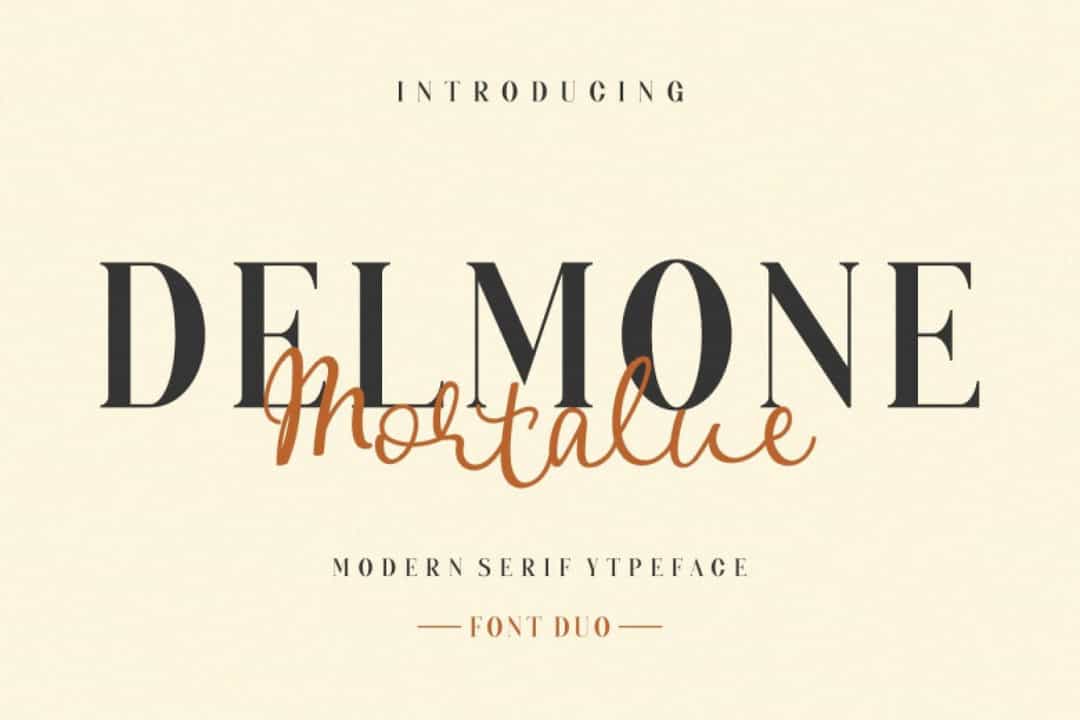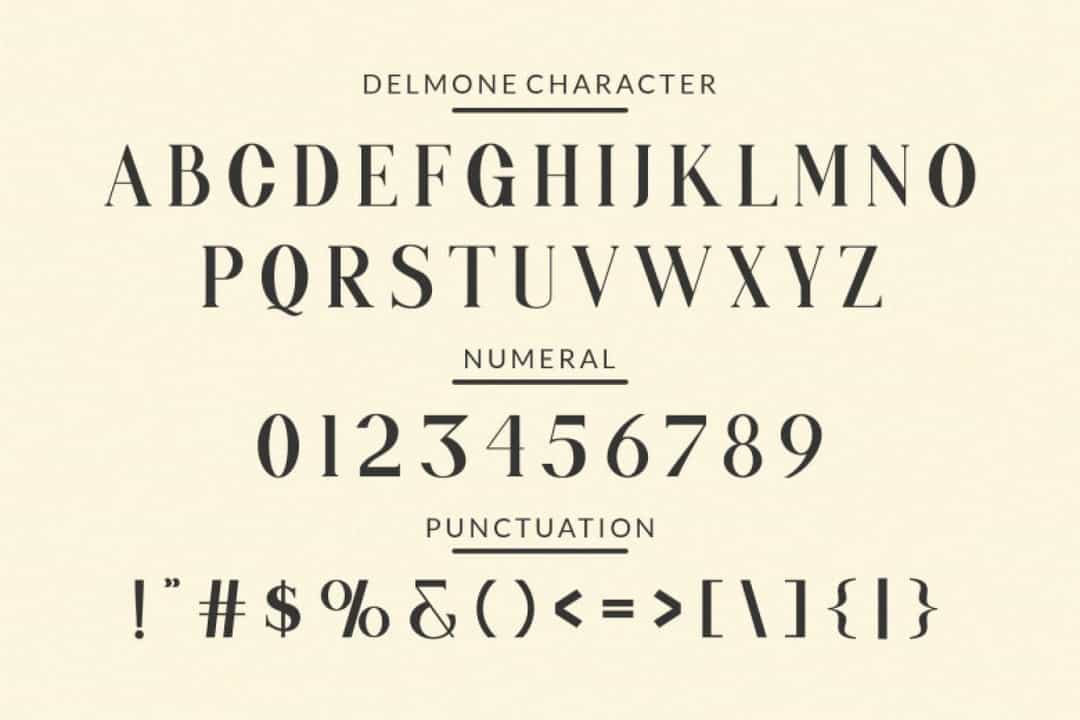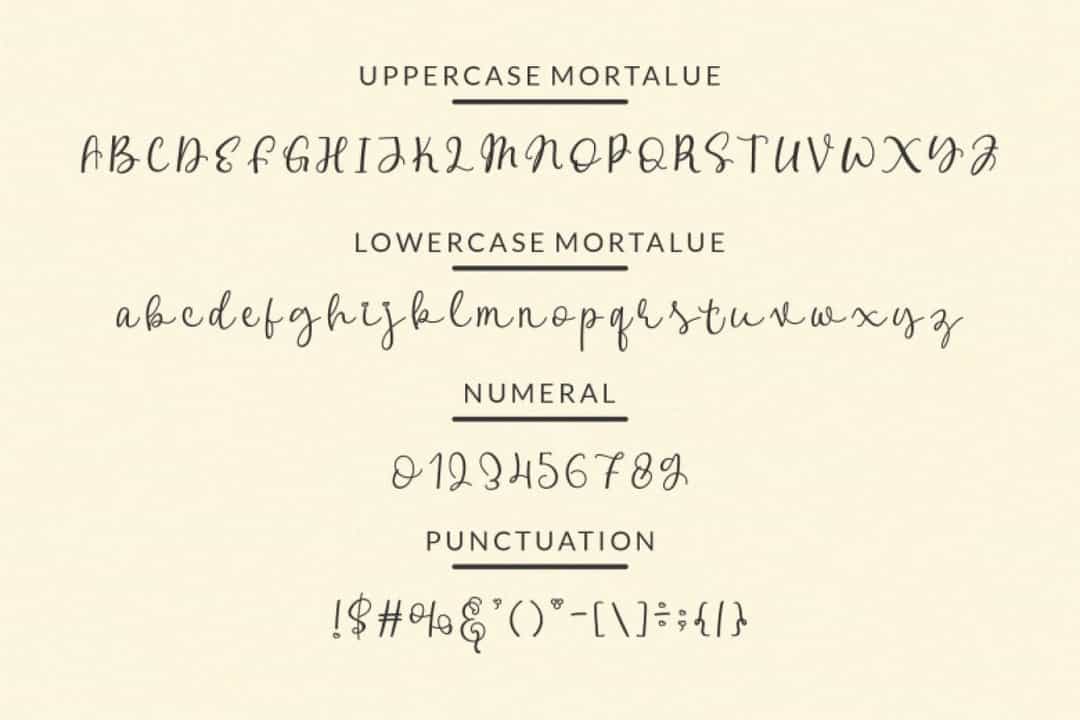
Discover Delmone & Mortalue Font, part of the Handwritten Serif collection—a versatile and unique font perfect for adding a personal touch to your projects. Download it for free and enjoy crafting designs with style, from invitations to social media posts. This font is available exclusively for personal use, giving you the freedom to create without limits. Unlock your creativity with Delmone & Mortalue Font today!
Delmone and Mortalue is an outstanding and comprehensive two-font set (script and serif), perfect for adding brand identity and appeal to your projects. Both styles complement one another beautifully while still standing out as stunning standalone fonts.